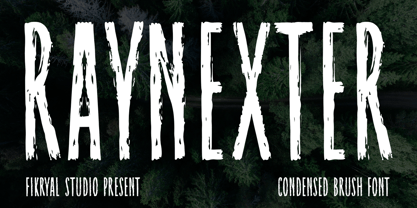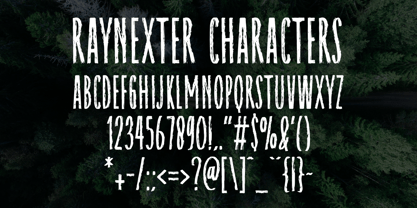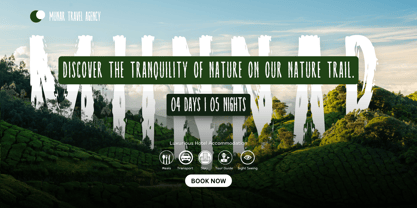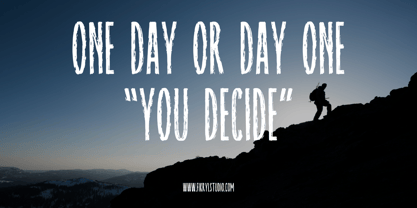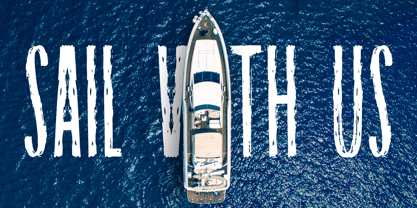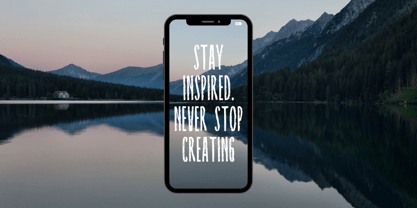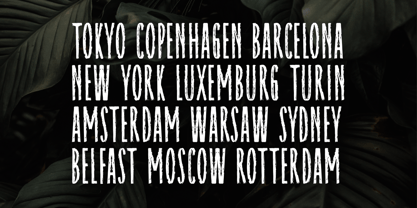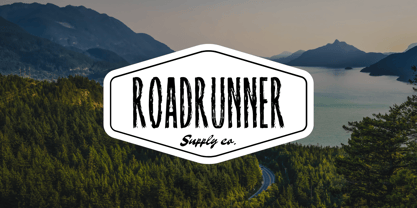
Raynexter
by Fikryal
The Raynexter Font Family was designed by Muhammad Fikry and published by Fikryal. Raynexter contains 2 styles and family package options. More about this family
Raynexter is a powerful condensed brush font designed in all caps, featuring rough textures and tall, narrow letterforms. With its bold brush strokes and distressed edges, this font delivers a raw and untamed energy that stands out in any design.
Available in Regular and Italic styles, Raynexter gives you flexibility to create impactful headlines, gritty branding, and expressive poster designs. Its condensed form maximizes space while keeping your typography strong, sharp, and unforgettable.
Perfect for projects that need a rugged and adventurous vibe, Raynexter works seamlessly for music artwork, horror movie posters, extreme sports branding, outdoor apparel, and bold social media graphics.
What’s Included:
• All caps letters (uppercase set)
• Numbers & punctuation
• Multilingual support
Great For:
✔ Music & concert posters
✔ Outdoor & survival branding
✔ Streetwear & merchandise
✔ Bold logos & social media campaigns
Unleash the wild side of your design with Raynexter – Condensed Brush Font.